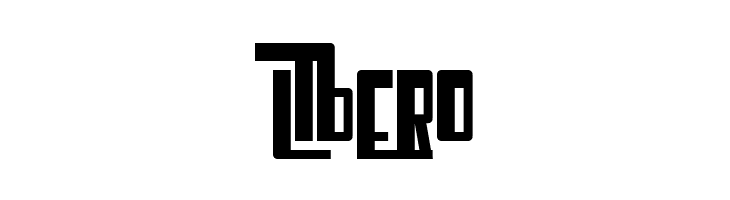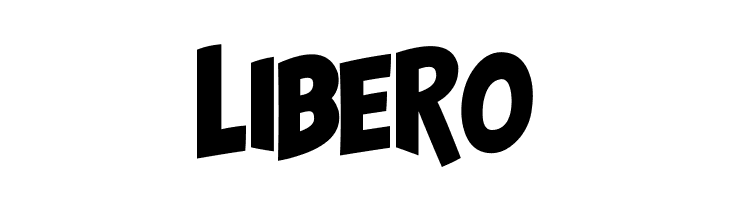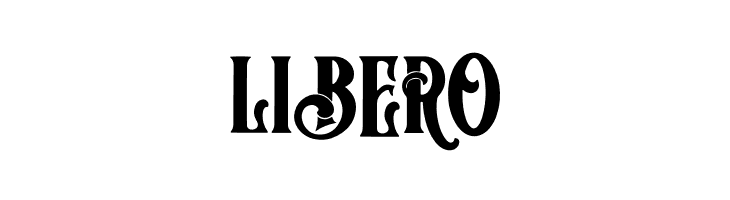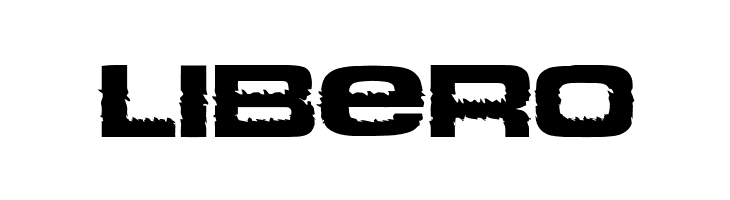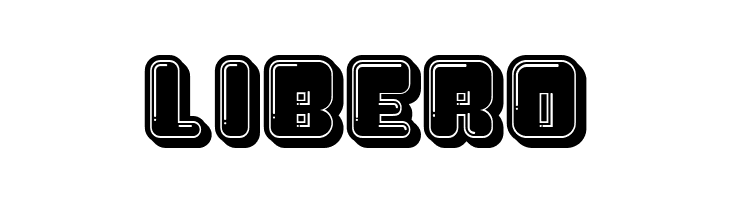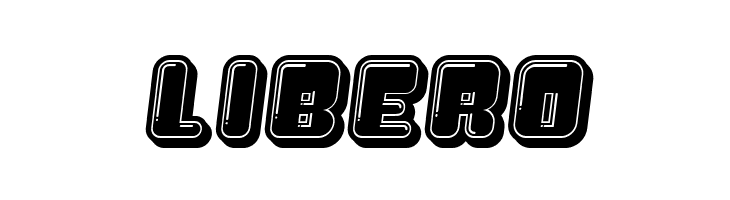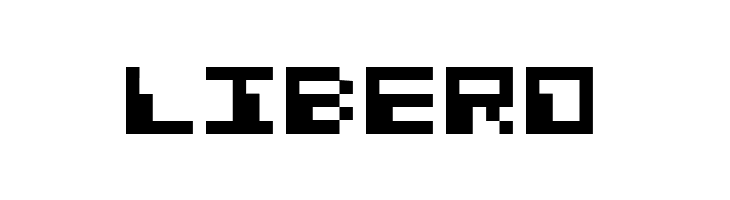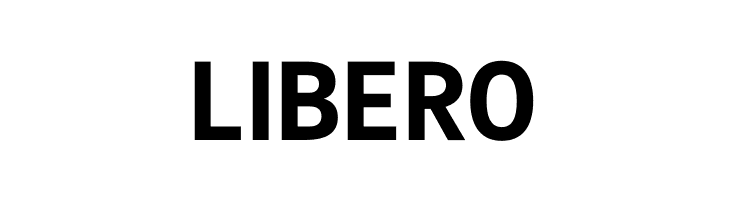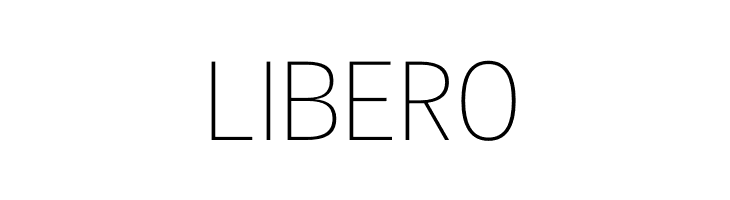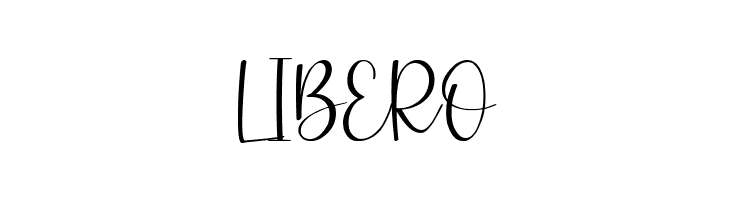
A glitchy, distorted font with a digital error aesthetic.
A bold, modern sans-serif font with geometric structure and uniform width.
A bold, italicized font with a three-dimensional, decorative style.
A bold, decorative font with a three-dimensional effect and thick outlines.
A bold, decorative font with irregular, playful shapes.
An elegant, flowing script font with smooth, cursive strokes and graceful curves.
A bold, modern sans-serif font with clean, uniform strokes.
A sleek, modern font with thin, elongated letterforms and clean lines.
A playful, hand-drawn font with quirky letterforms and smiley face characters.
A bold, decorative font with intricate swirls and flourishes.
A bold, distressed font with a grunge texture and wide, condensed characters.
A bold, retro-inspired font with thick, rounded strokes and a playful, cartoonish style.
A modern, geometric sans-serif font with a clean and minimalist style.
A bold, pixelated font with a retro, digital aesthetic.
A bold, playful font with a futuristic and dynamic style.
A bold, dynamic font with playful, energetic characters.
A bold, geometric font with a futuristic and edgy style.
A whimsical, decorative font with cosmic motifs in each character.
A bold, angular font with a futuristic and edgy design.
A playful, whimsical script font with smooth, flowing cursive letters.
A sophisticated serif font with elegant curves and distinct serifs, suitable for versatile applications.
A bold, rounded font with playful and dynamic letterforms.
A bold, brush-style font with an energetic and artistic flair.
A playful, informal handwritten font with whimsical letterforms.